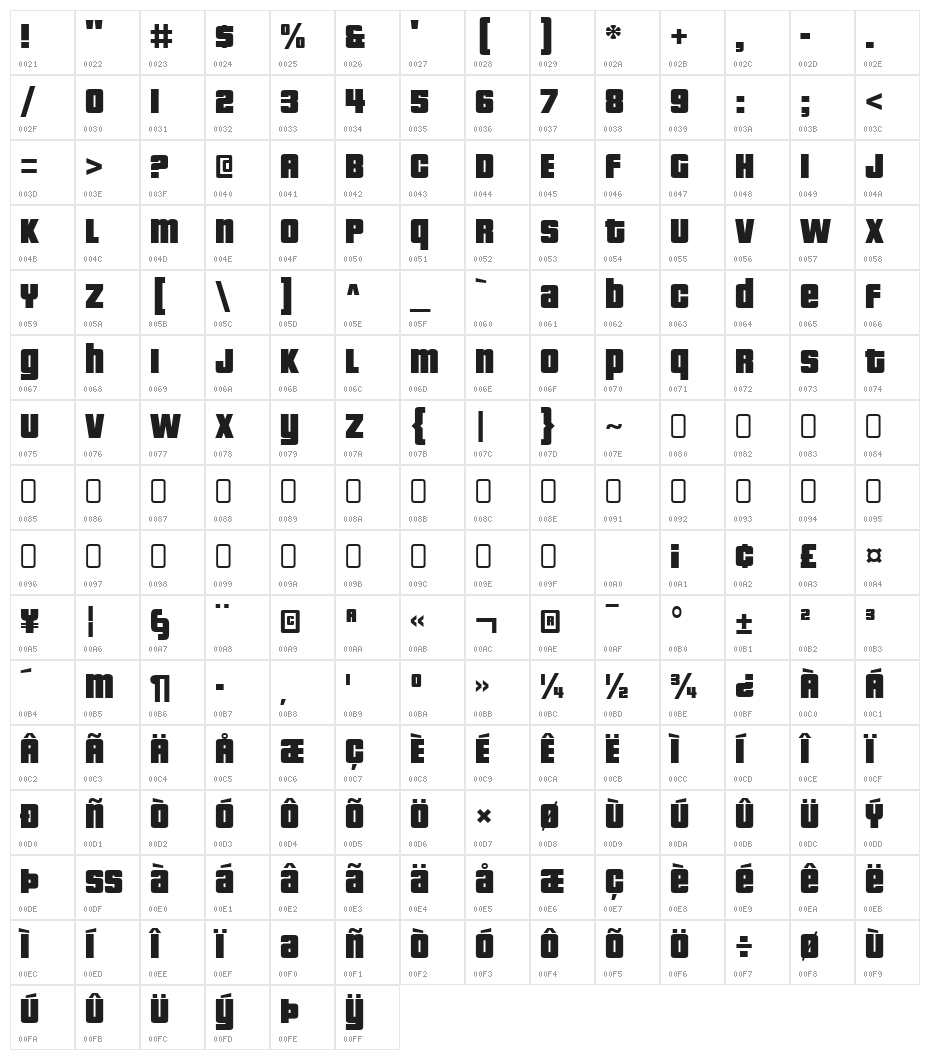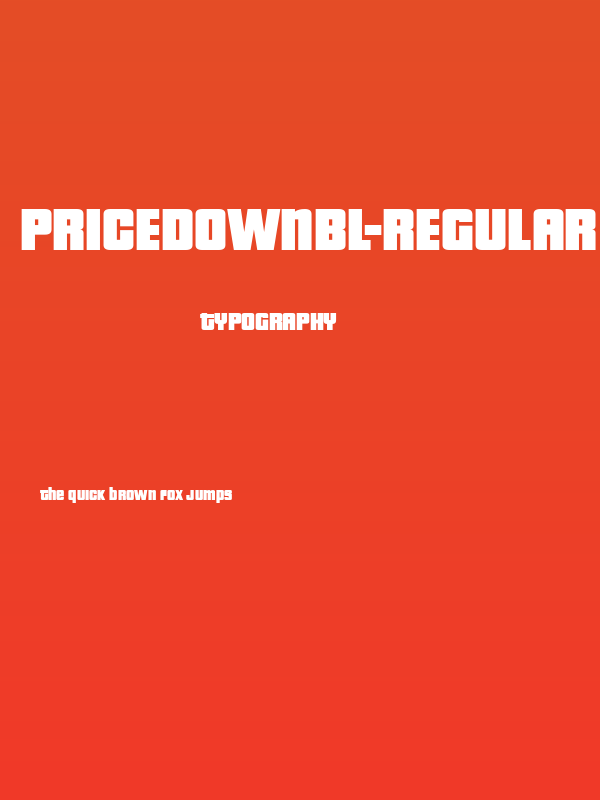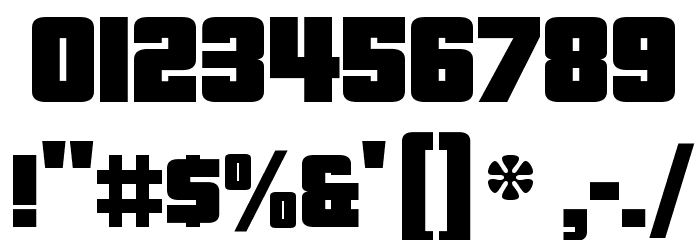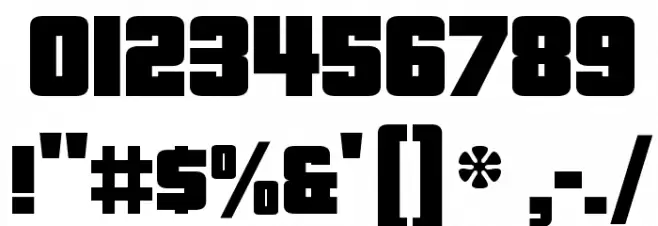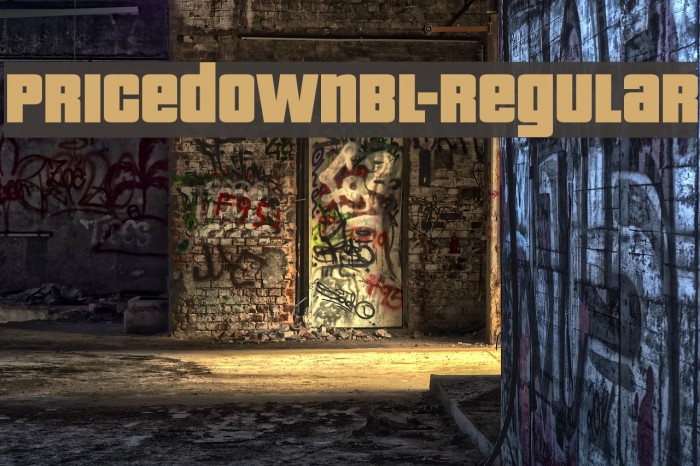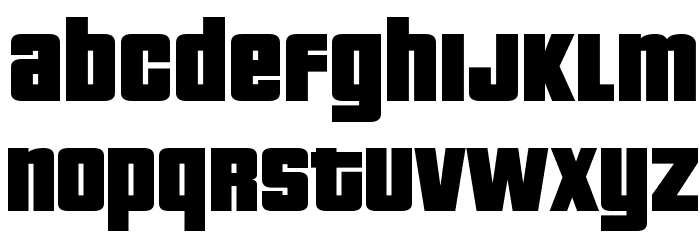
PricedownBl-Regular Font
PricedownBl-Regular Description
This bold and impactful font features a strong, geometric design with thick, uniform strokes that create a commanding presence. The characters are blocky and wide, with a consistent height that enhances readability and visual impact. The uppercase and lowercase letters maintain a similar width, contributing to a cohesive and balanced appearance. The numerals and special characters are designed to match the boldness and geometric style of the alphabet, ensuring a unified look across all text elements. This font is ideal for making a statement and capturing attention with its robust and assertive style.
| Proposed Projects | Ideal for headlines, posters, branding, and any project requiring a bold, attention-grabbing typeface. |